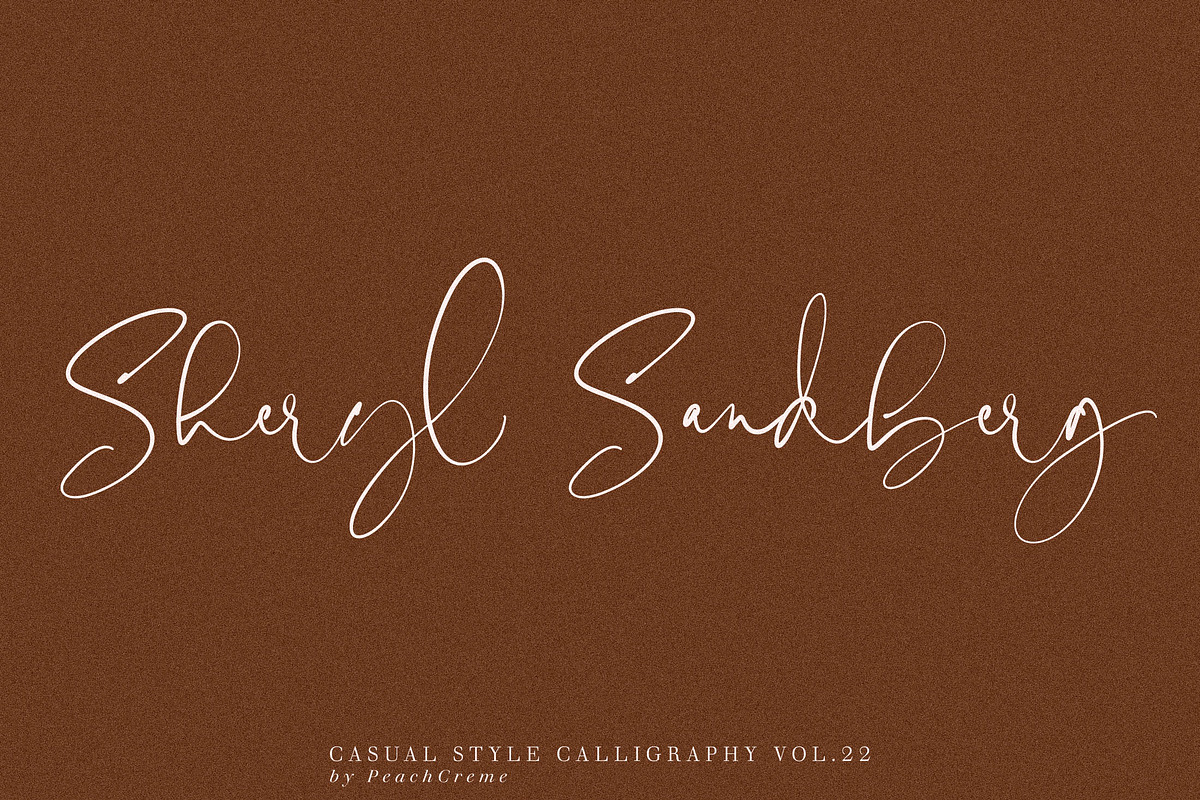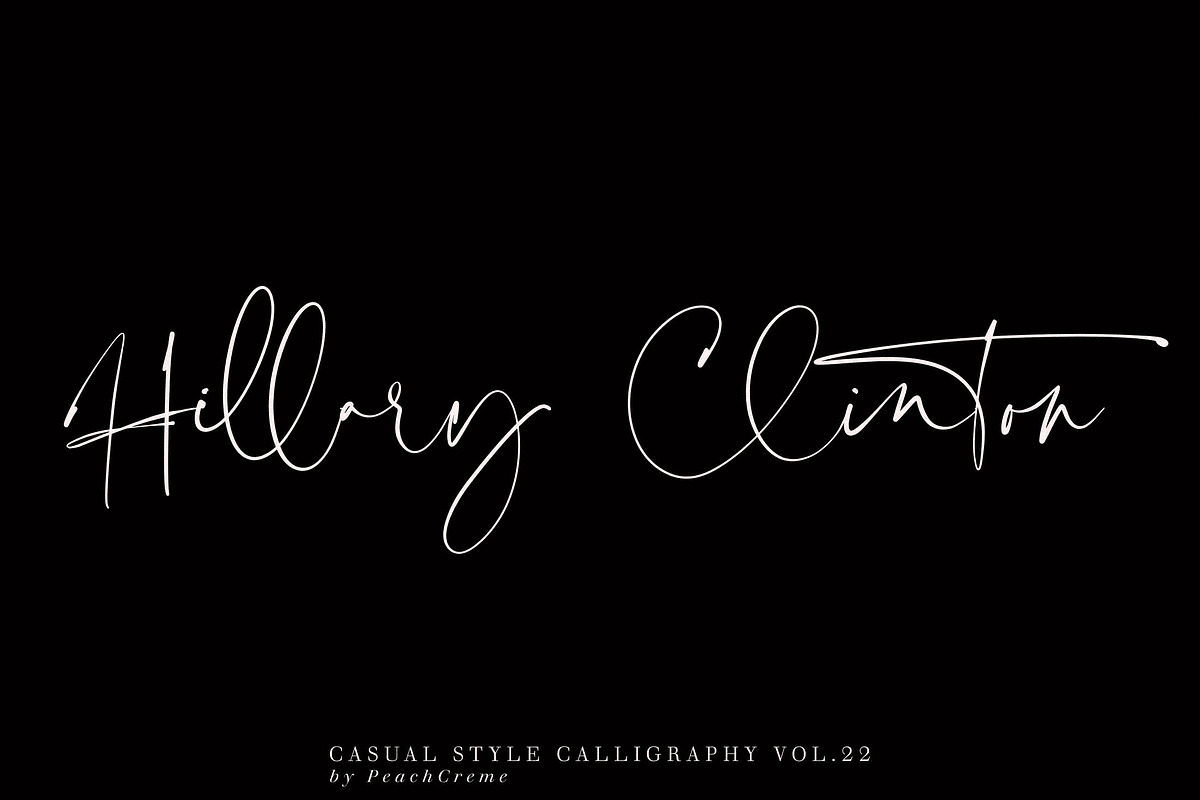
Feminist Casual Font
From my childhood I as told that 8th of March (people from CIS will understand) is the day of women: day of femininity, beauty. We wore beautiful dresses, makeups, gave each others flowers... I grew up and understood that 8th of March more than that "flowery" holiday. I understood that it is kind of a kindly sexism: a woman is supposed to be some kind of sexual aesthetic object, like some kind of vase or flower, to decorate herself, to please the eye, to be responsible for some emotional needs of society and men, always smile, be quiet, gentle, please a man. International Women's Day was intended to recall the contribution of women to the struggle for equality, for the right to vote, to be elected as president, for labor rights, and so on. So I thought it was the perfect time to share new font "Feminist" to celebrate feminism and the fight for gender equality.
Feminist also includes full set of uppercase and lowercase letters, multilingual symbols, numerals, punctuation. The font has smooth wet ink texture, so would be perfect for all types of printing techniques+you can do embroidery, laser cut, gold foil etc.
It has following ligatures: ld ss at am an ay ab nn tt sa zz att ul oll ull ol all ch ell el al mm ua onn ll htau pp il ill gg cc ot ott ut utt it i tt et ett nt ntt un om in on um bl kl Cl yl dd ed
Why Feminist Casual Font is worth a look
Feminist Casual Font by PeachCreme fits naturally into Branding, posters, packaging, typography.